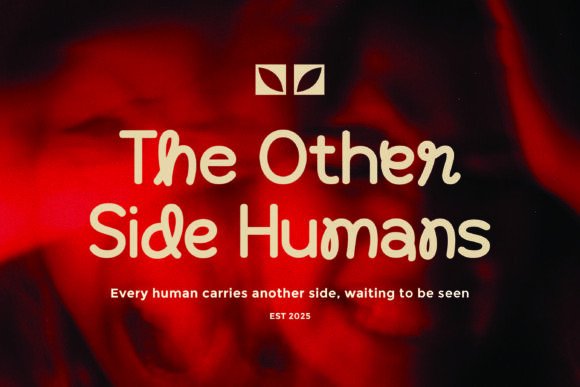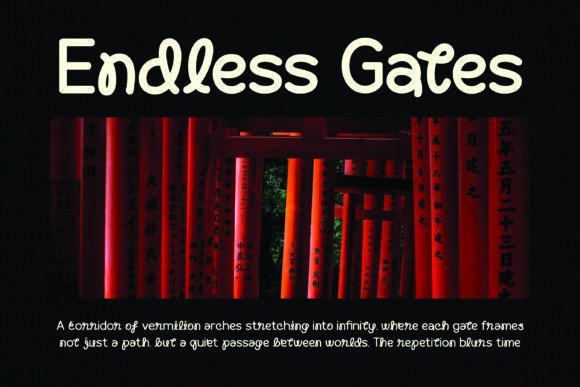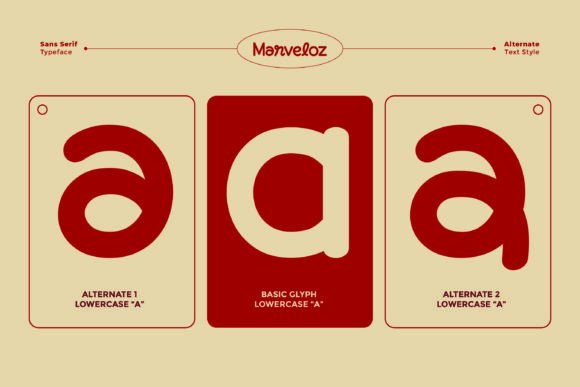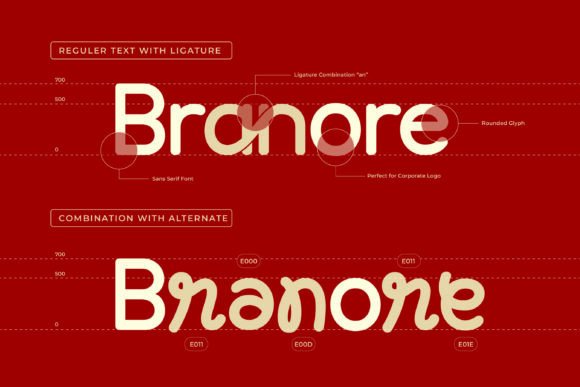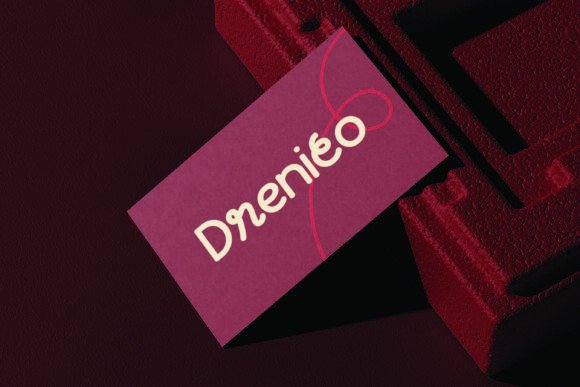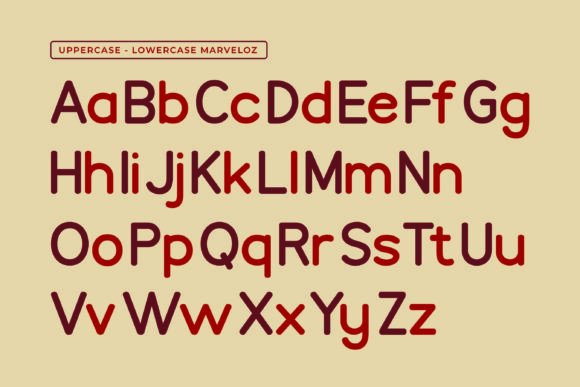
Introduction to Marveloz Font
Have you ever stumbled upon a font that makes your creative project come alive? For designers, discovering the perfect typeface can be a game-changer. It’s the moment when the words on the page transform from mere text to a visual representation of your brand’s personality. This is exactly what happens when you work with the Marveloz Font – a delightful blend of simplicity and whimsy that’s sure to spark joy and curiosity.
As a design resource, Marveloz Font offers a unique combination of modern, organic, and friendly characteristics that make it an excellent choice for fun, youthful branding, innovative food packaging, and playful app design. With its monolinear, smoothly rounded structure and playful internal loops, this font is a true standout. Plus, its PUA-encoded features ensure effortless access to all glyphs, swashes, and alternate characters, making it a high-quality design resource that’s easy to work with.
Key Features of Marveloz Font
- High-quality, vector-based font design, suitable for various creative projects
- Includes a wide range of characters, including Latin, Cyrillic, and Greek alphabets, as well as punctuation and symbols
- Unique, handcrafted design aesthetic, setting it apart from more generic font options
Honest Review: Marveloz Font
I recently had the chance to work with the Marveloz Font in a creative project, and I’m excited to share my thoughts on this design resource. One of the things that stood out to me was the high quality of the font, which added a professional touch to my design. ✨
The Marveloz Font offers a lot of flexibility, making it suitable for a wide range of creative projects. The font is available for free download, which is a definite plus for designers on a budget. However, be aware that the font’s transparent background can sometimes make it difficult to use in certain design contexts. ⚠️
Here are some of the key features of the Marveloz Font:
- Suitable for a wide range of creative projects
Overall, I’m impressed with the Marveloz Font. While it may have some limitations, its high quality and flexibility make it a valuable design resource. I’d definitely consider using it again in future projects.
The Marveloz Font is perfect for a variety of creative projects, including logos, business cards, and social media graphics. Its high-quality design makes it ideal for use in marketing materials, presentations, and other visual communications.